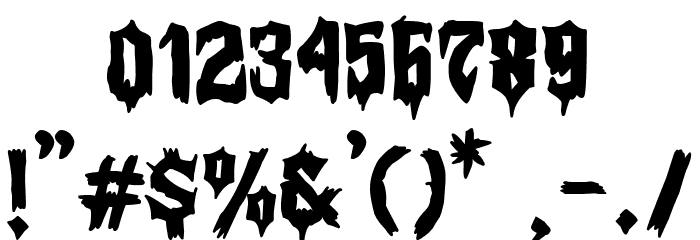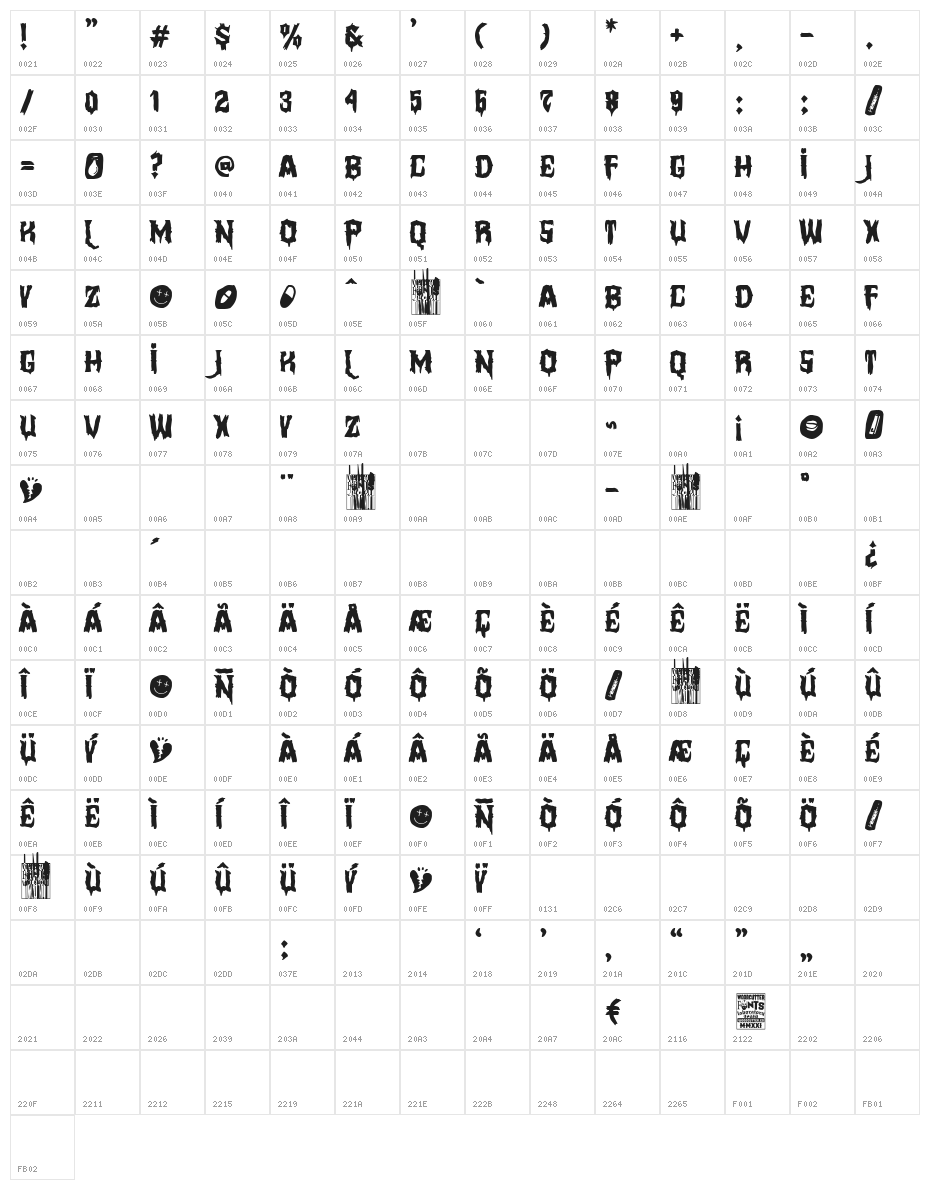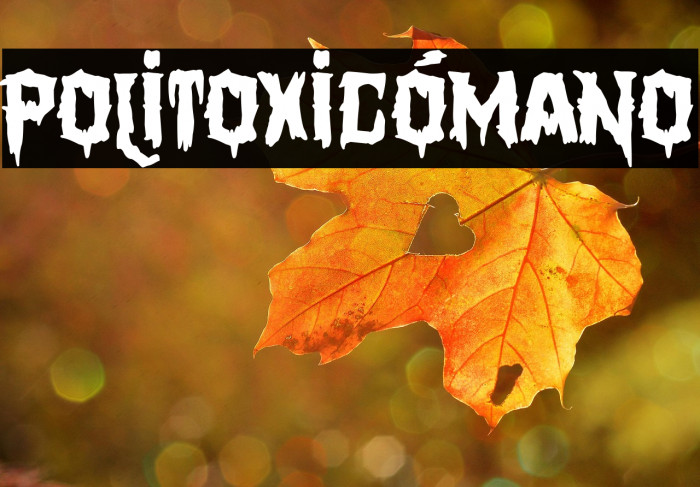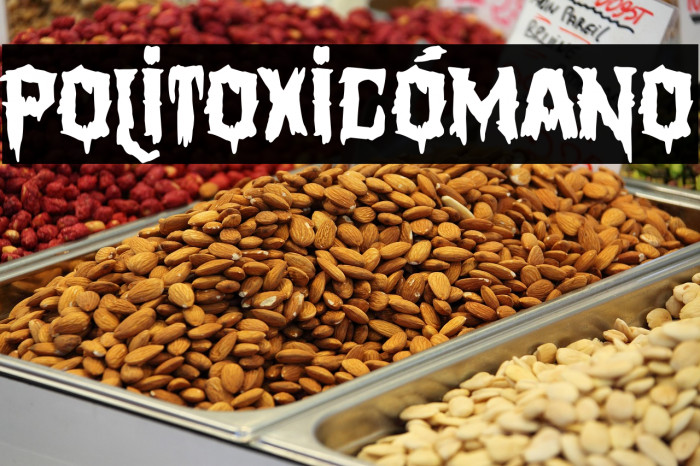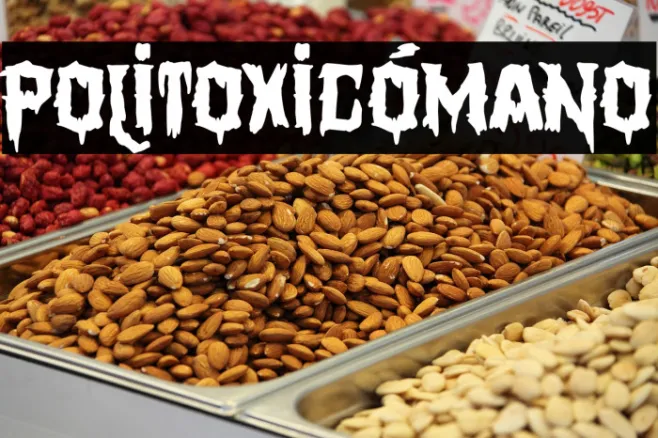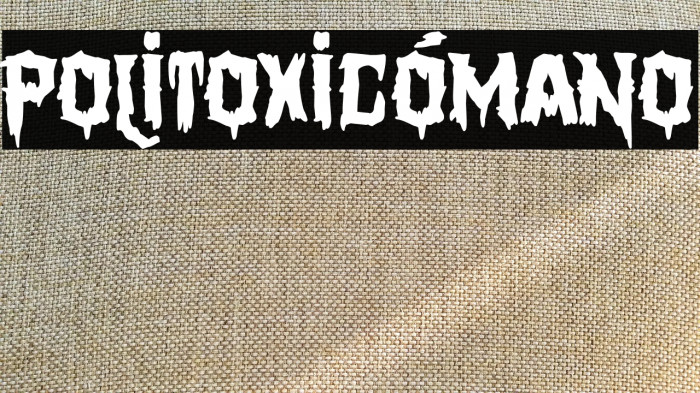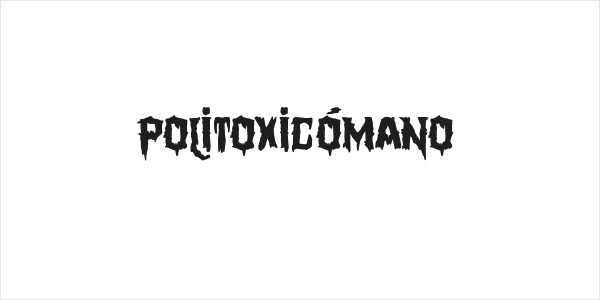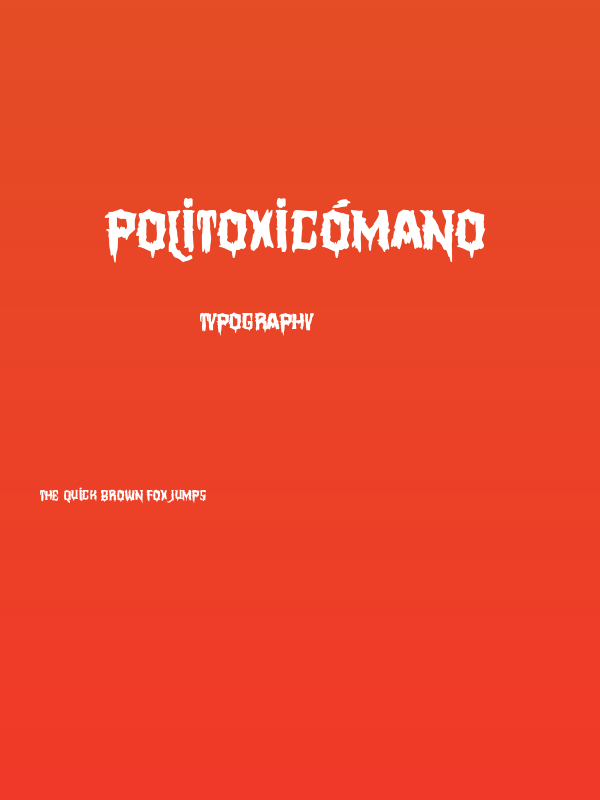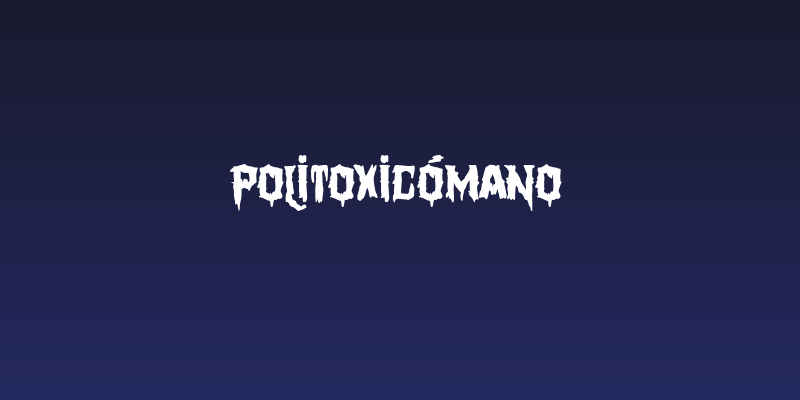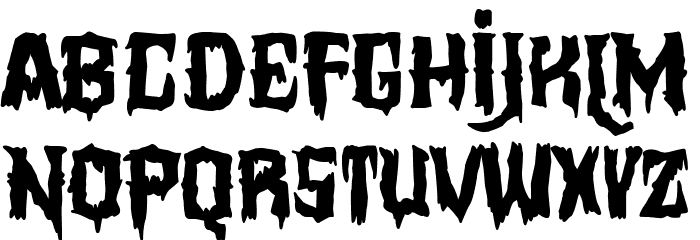
Politoxicómano Font
Politoxicómano Description
This font features a bold and jagged design, reminiscent of horror or thriller themes. The characters have a dripping effect, giving them a dynamic and eerie appearance. The uppercase and lowercase letters maintain a consistent style, with sharp edges and irregular shapes that suggest movement or decay. Numbers and special characters follow the same aesthetic, making the font suitable for creating a cohesive visual theme. The overall look is striking and attention-grabbing, ideal for projects that require a dramatic and unconventional typeface.